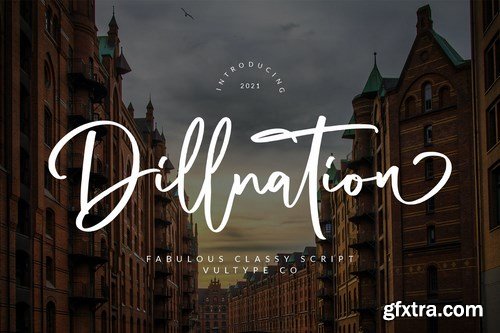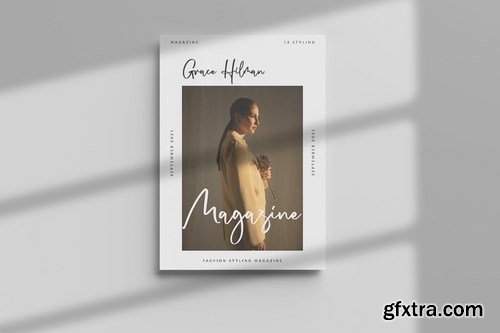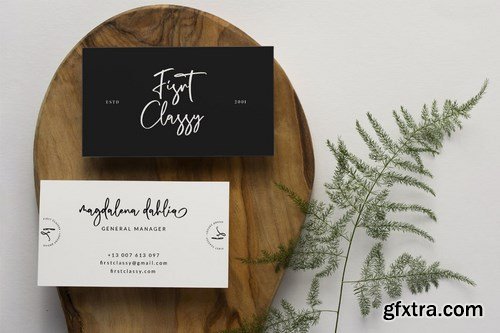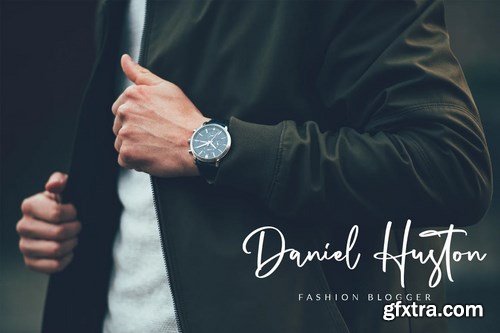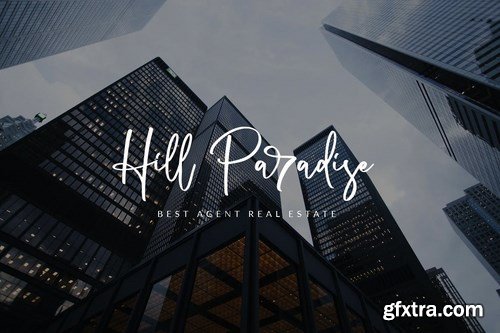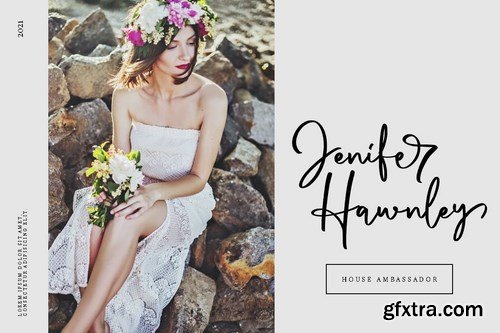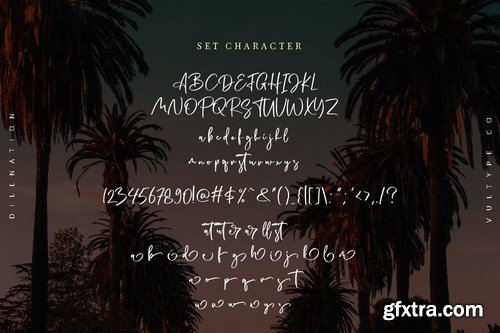
Dillnation Signature Font made with simple and elegant hand writing will create stunning signature style.
Dillnation is perfect for branding projects, logo, wedding designs, social media posts, advertisements, product packaging, product designs, label, photography, watermark, invitation, stationery and any projects that need handwriting taste.
Tons of glyphs
Ligature